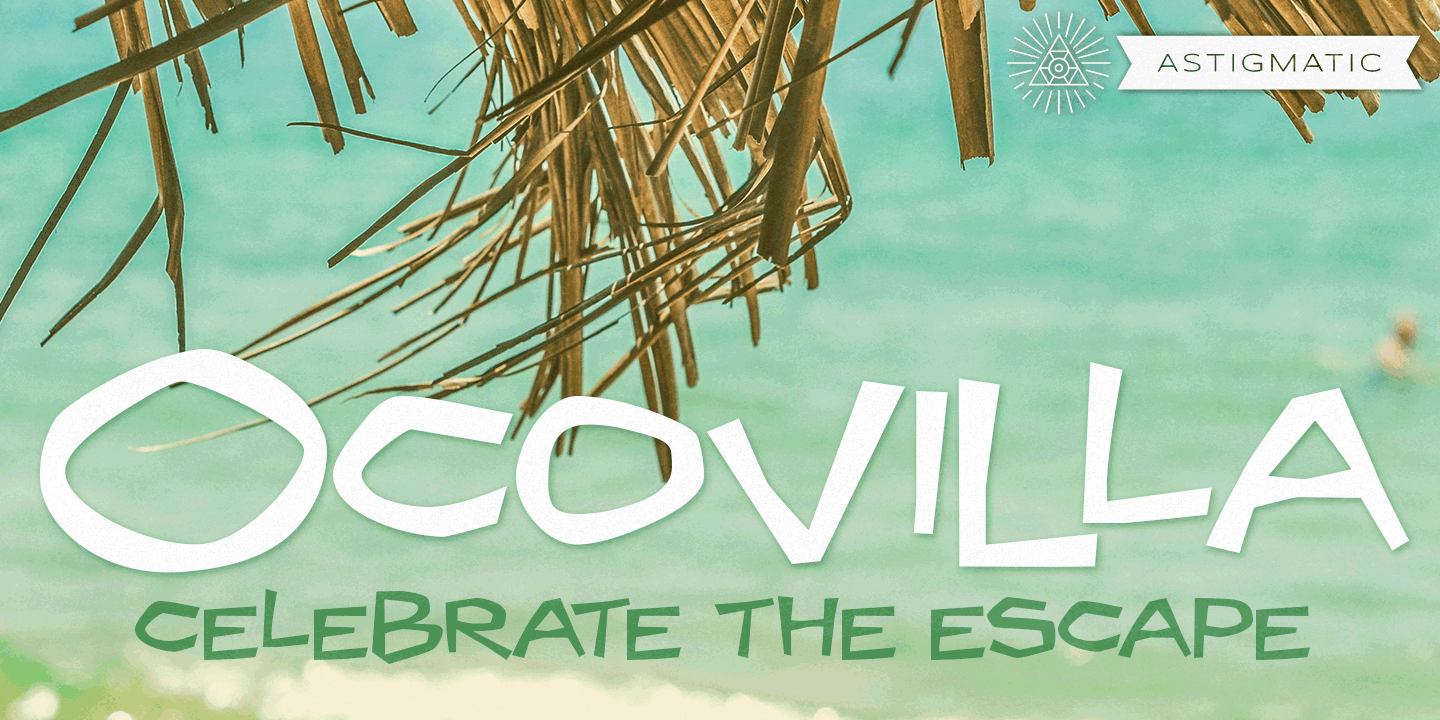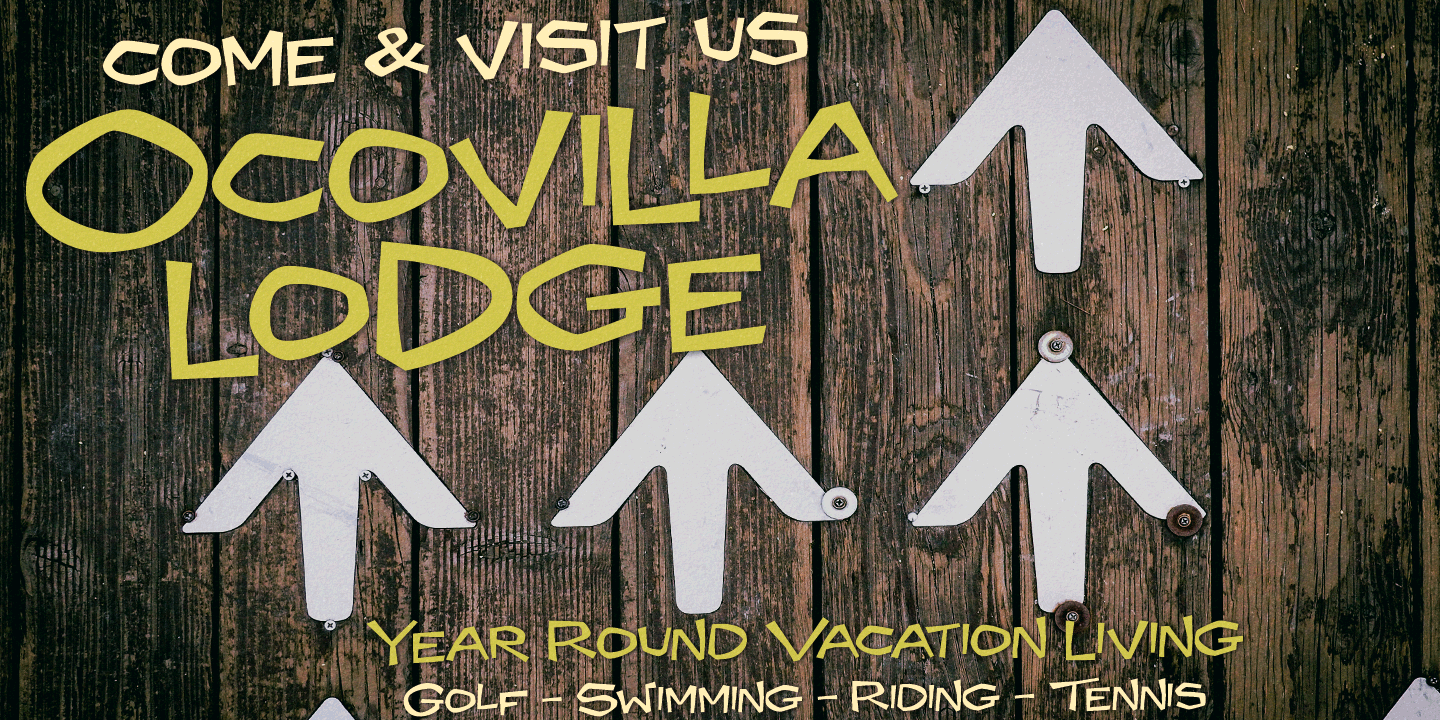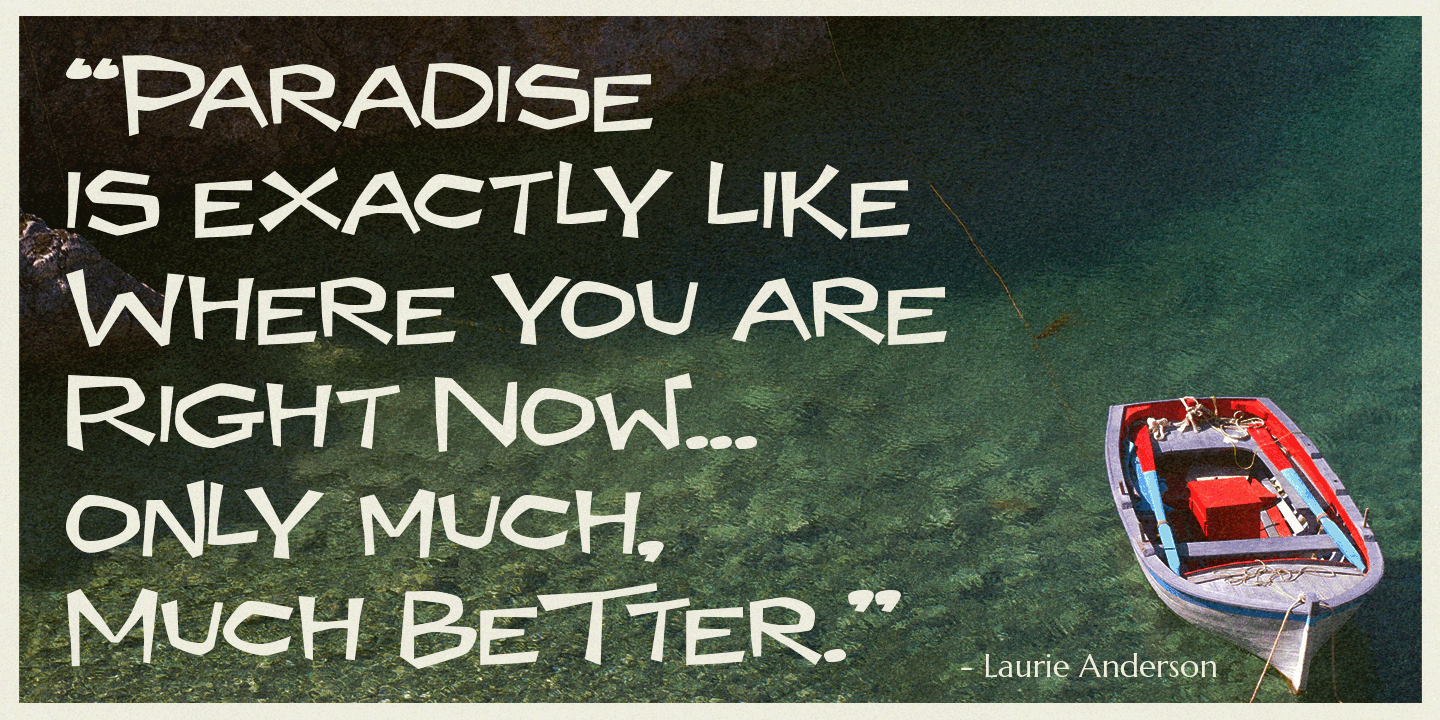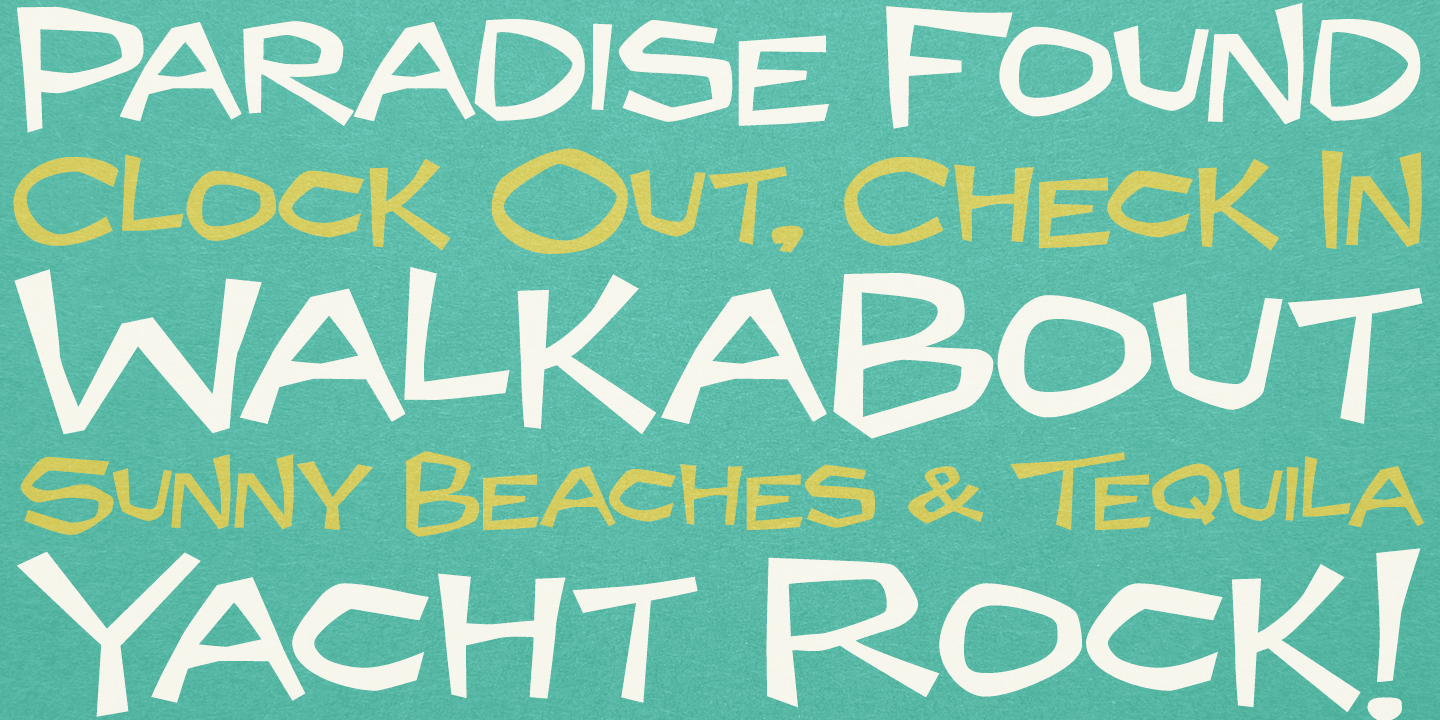
Ocovilla
Font Family by Astigmatic One Eye
Ocovilla is a single-style display font with a fun, retro personality and a distinctly wacky edge. Its look nods to mid-century design, drawing on 1940s, 1950s, and 1960s influences to create lettering that feels playful, offbeat, and full of character.
Designed by Astigmatic One Eye, this font family is a natural fit for work that needs a lively vintage voice. Use it for posters, branding, packaging, event graphics, or any display setting where a bold retro mood and a touch of humor can help the message stand out.